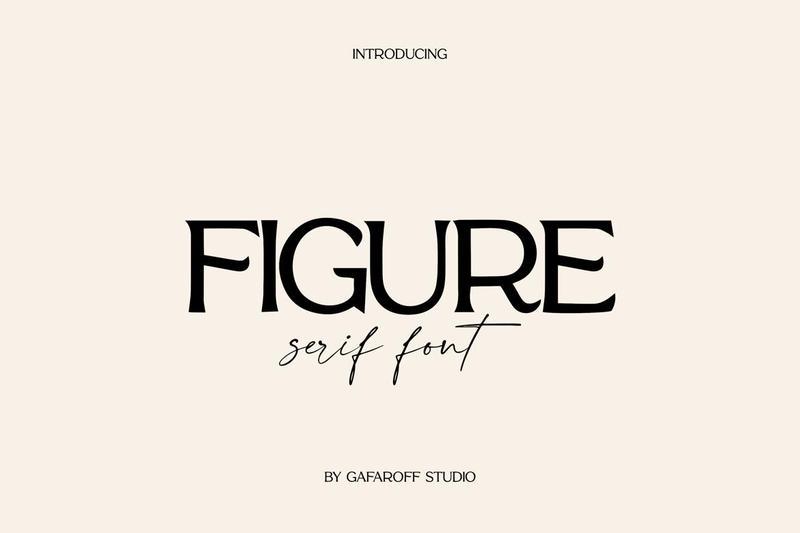
Figure Font C2QMJCY
Introducing Figure – a bold, sculptural display serif designed to make your typography look instantly premium. With high-contrast strokes, elegant curves, and a modern editorial attitude, FIGURE feels luxurious, artistic, and confident -perfect for brands that want a refined statement.